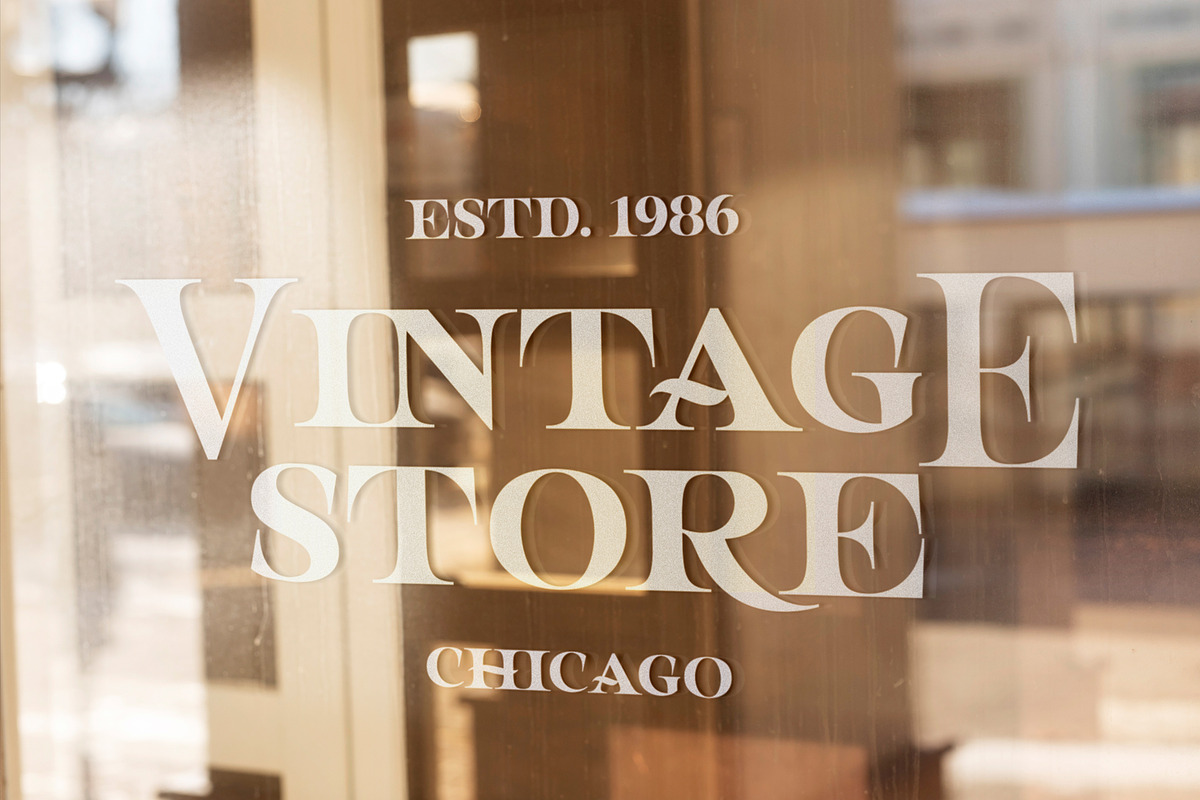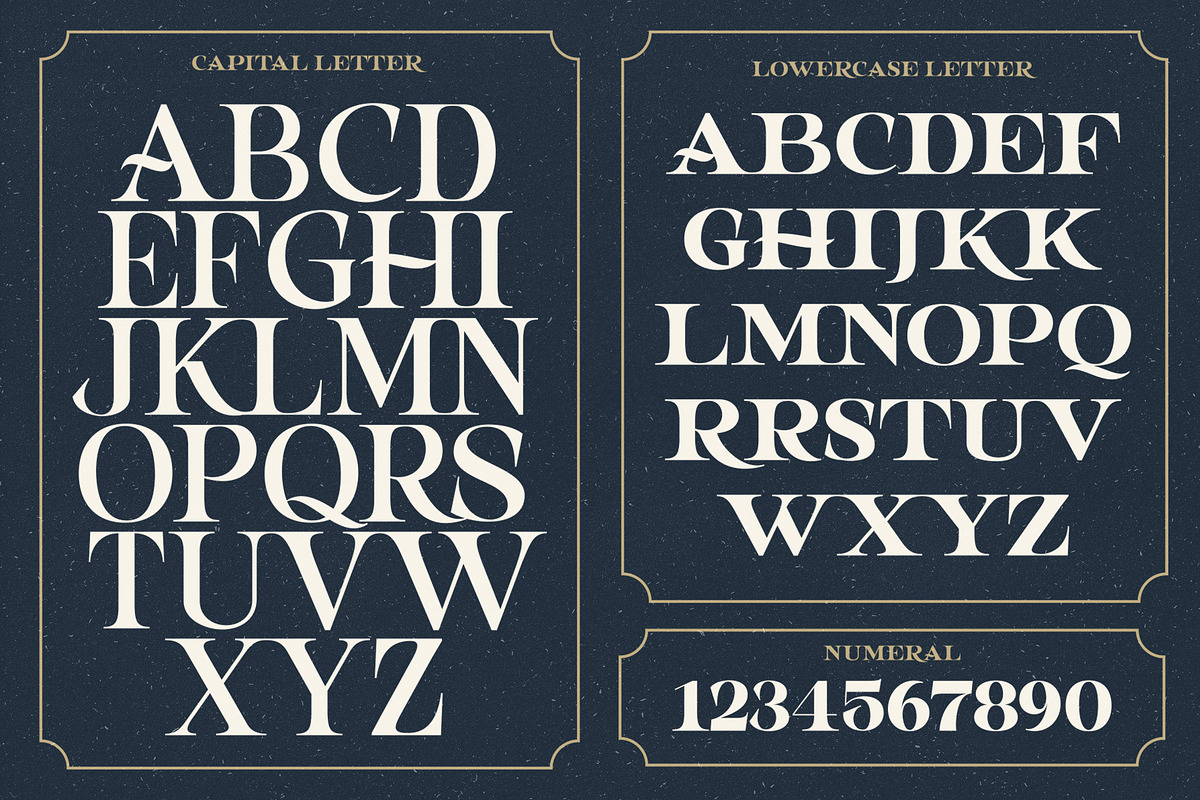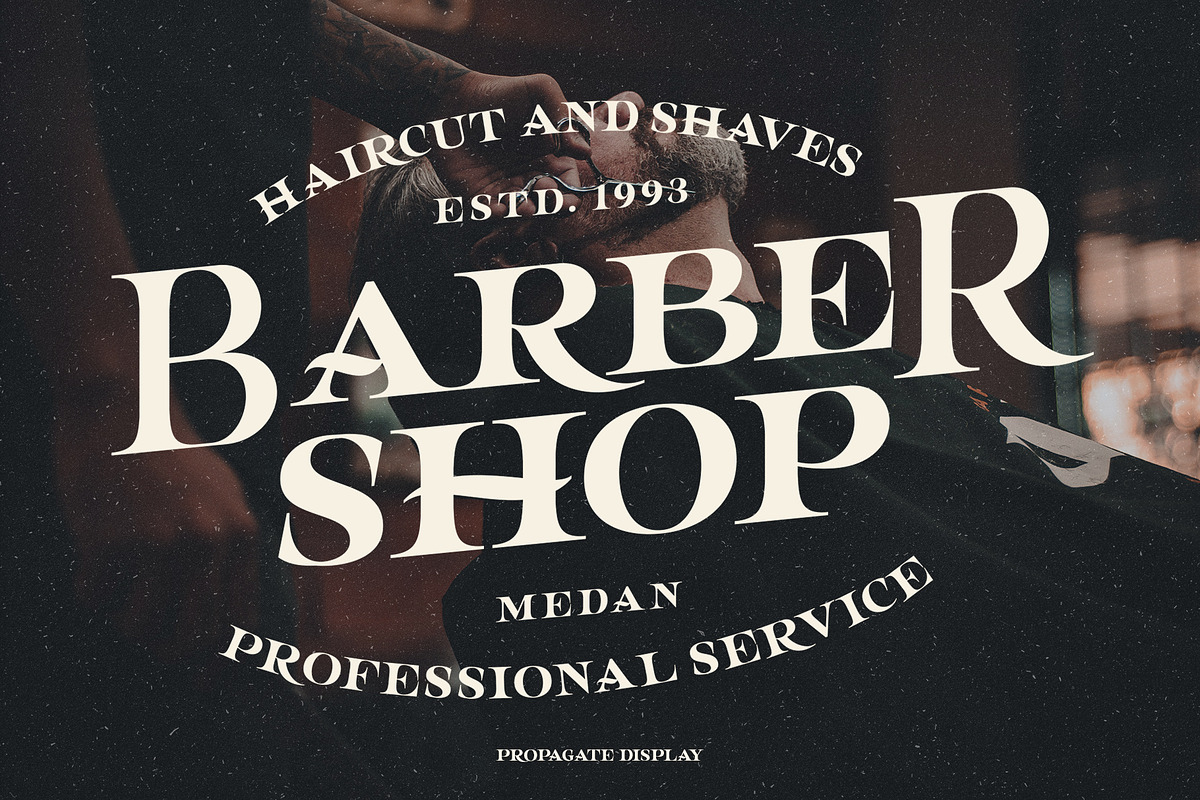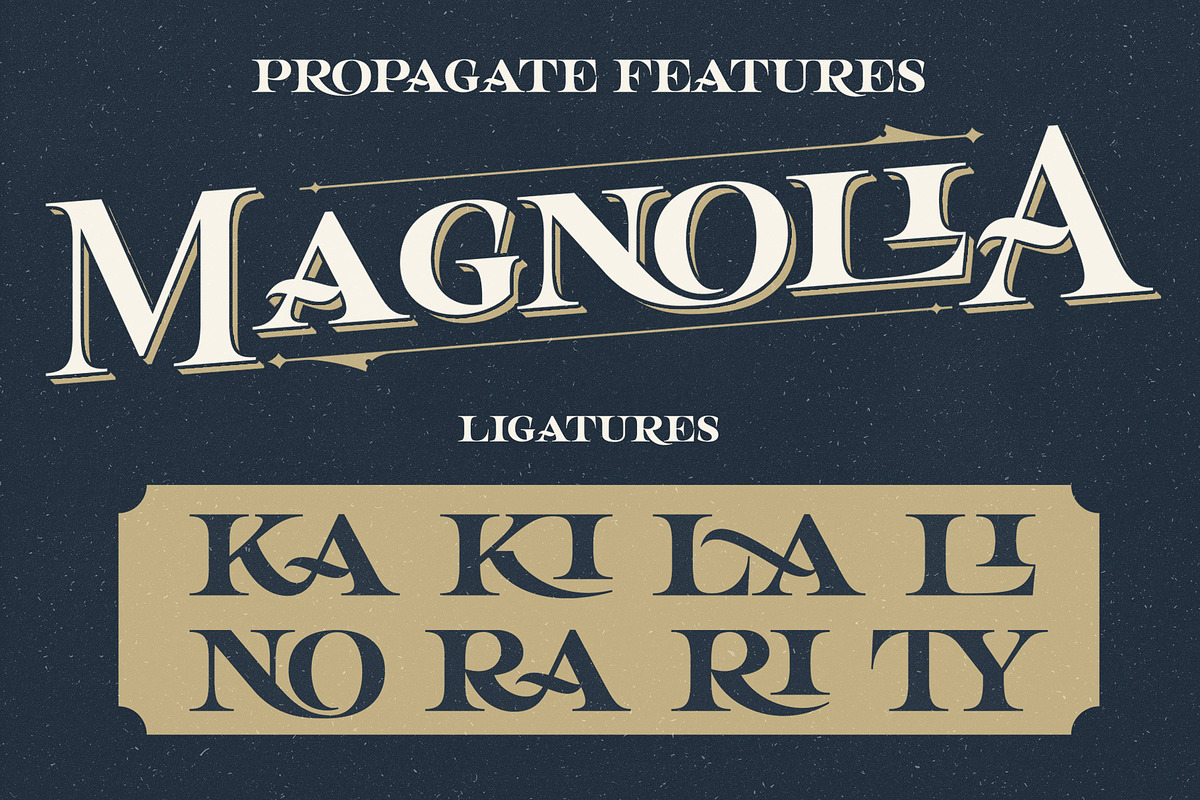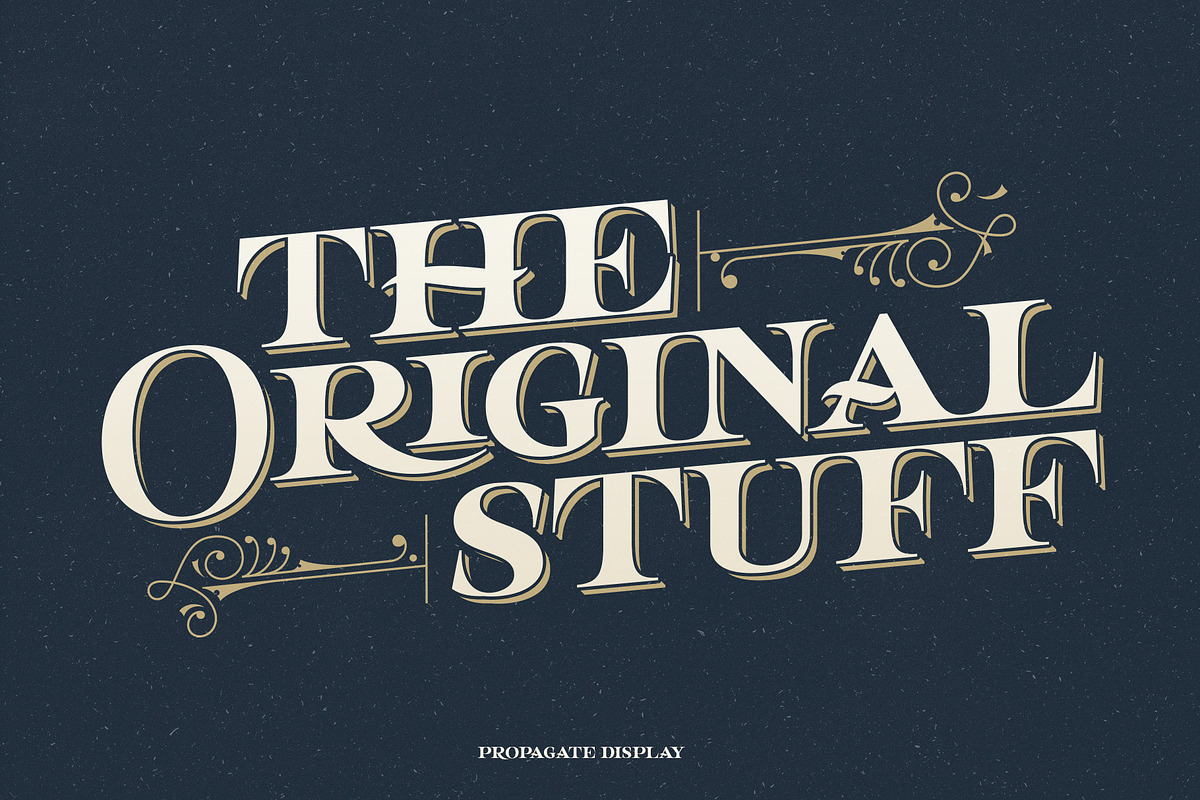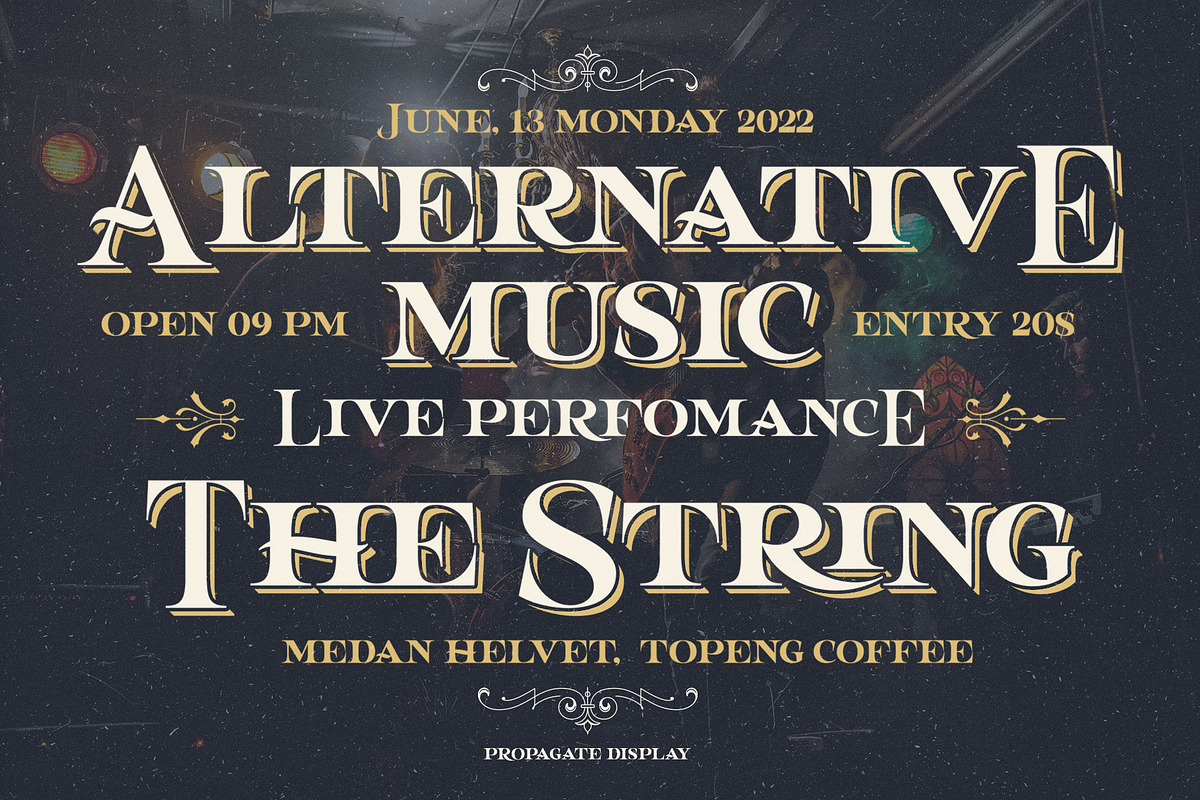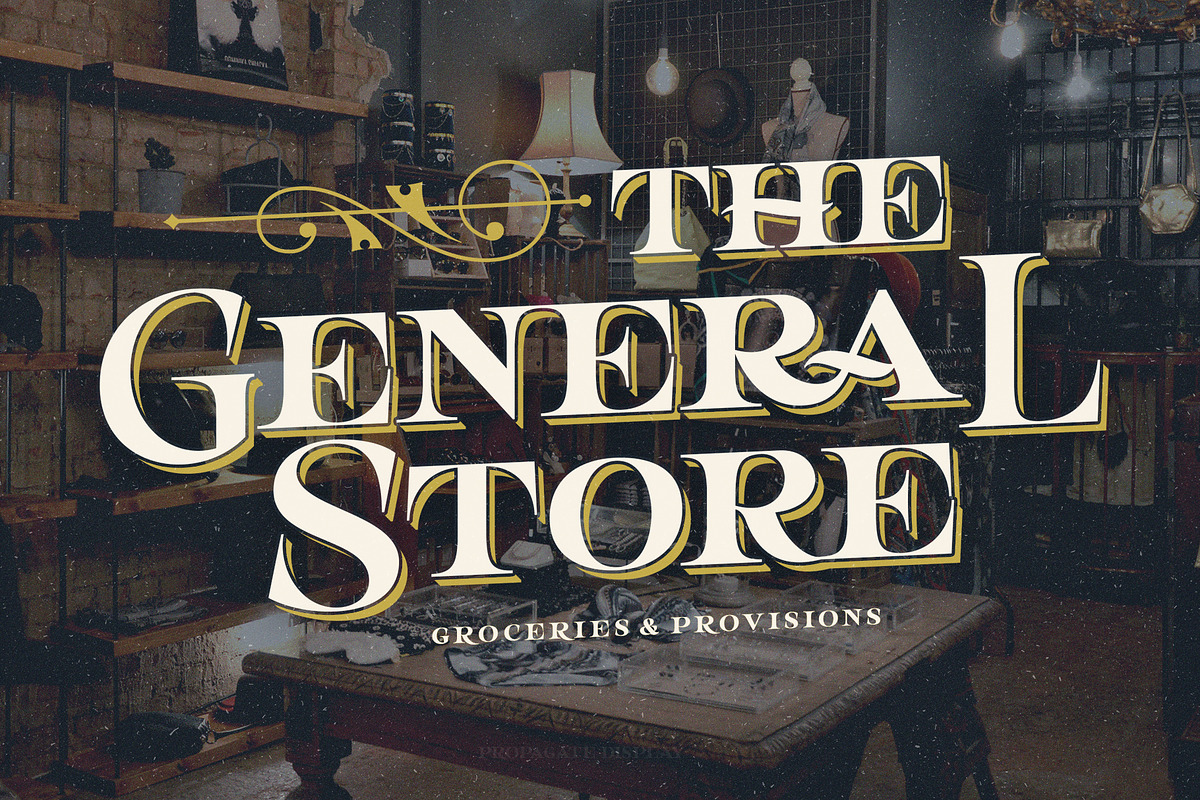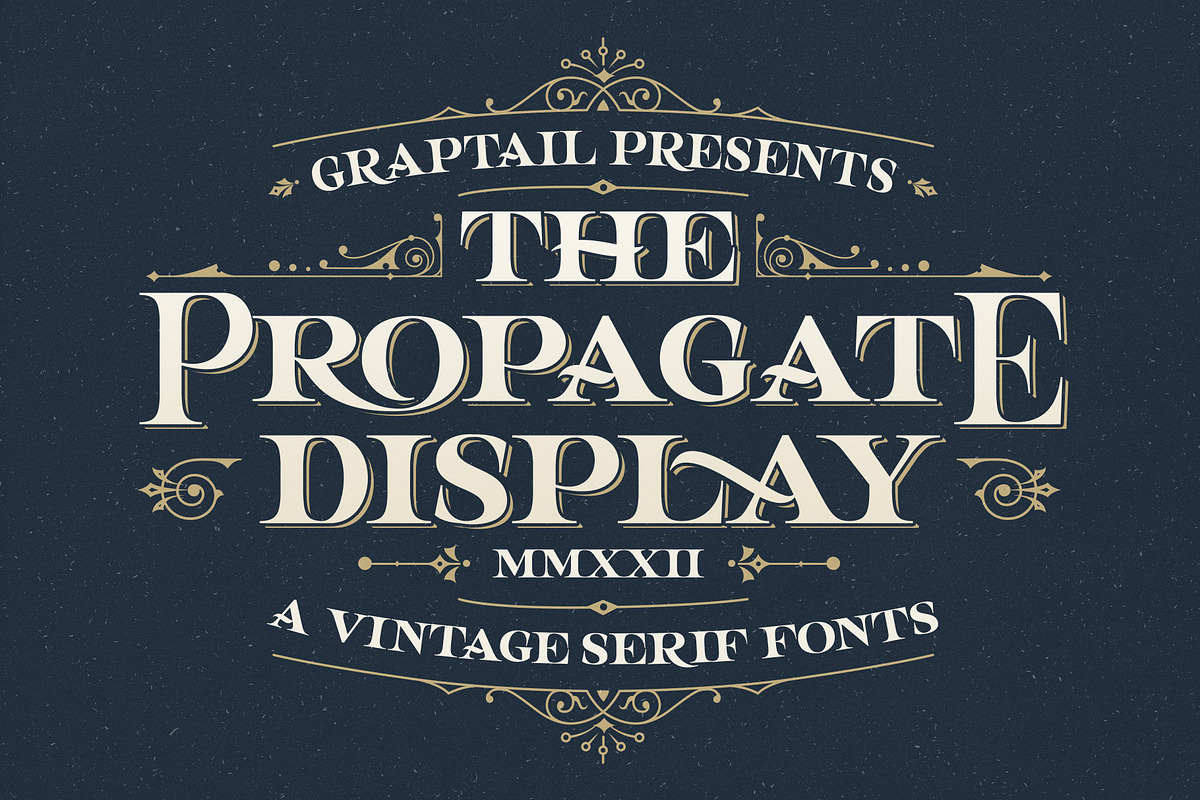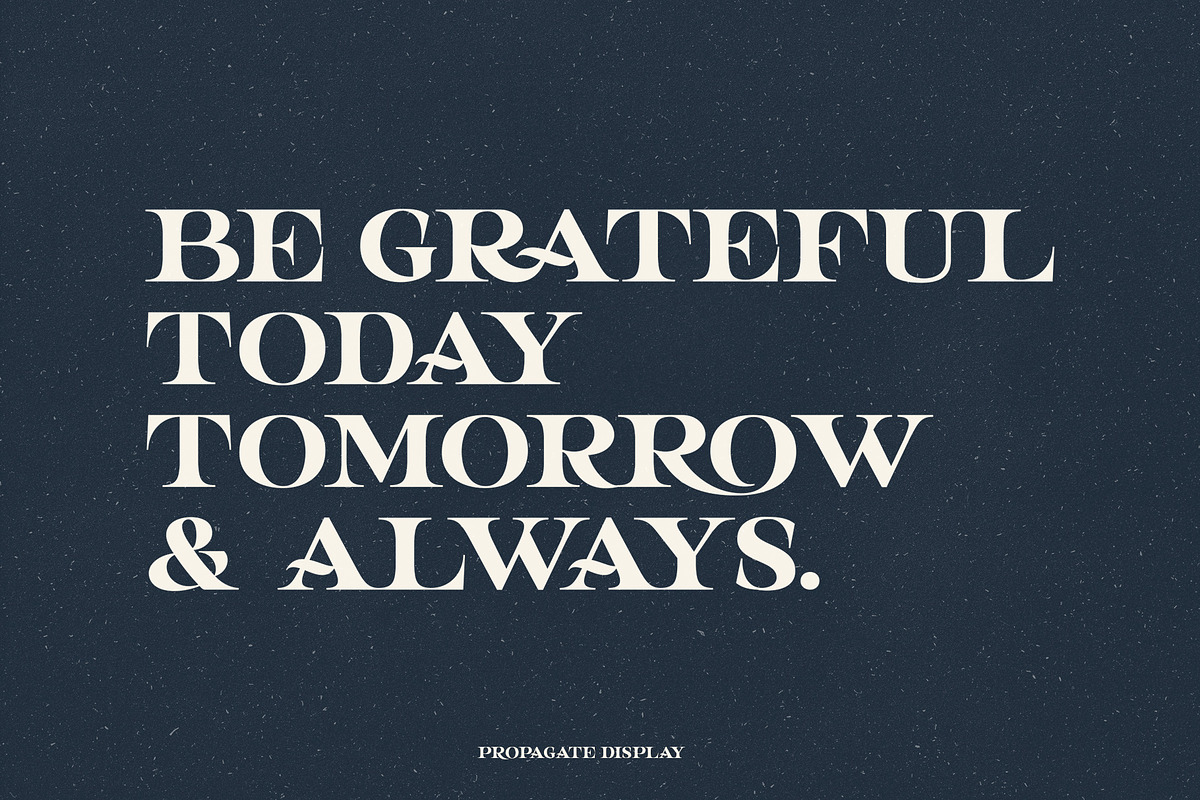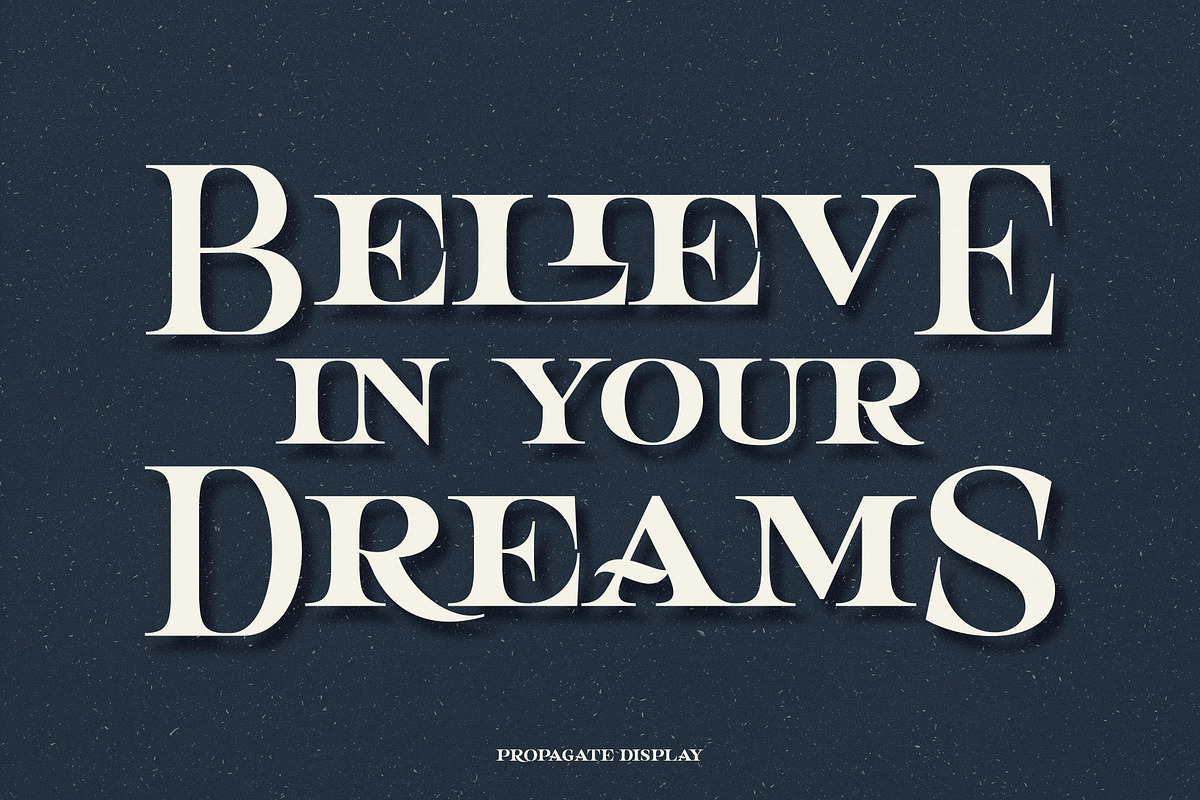
Propagate - Vintage Serif
Propagate is a font display is made by hand, inspired by classic posters.
Propagate comes with uppercase, lowercase, numerals, punctuations and so many variations on each characters include opentype alternates, common ligatures and also additional swash to let you customise your designs. Perfect to use for Logotype, Letterhead, Poster, Apparel Design, Label and etc.
OPENTYPE FEATURES
- Discretionary Ligatures
- Stylistic Set (ss01)
- All Alternates